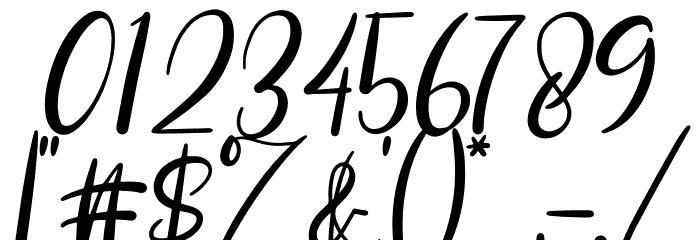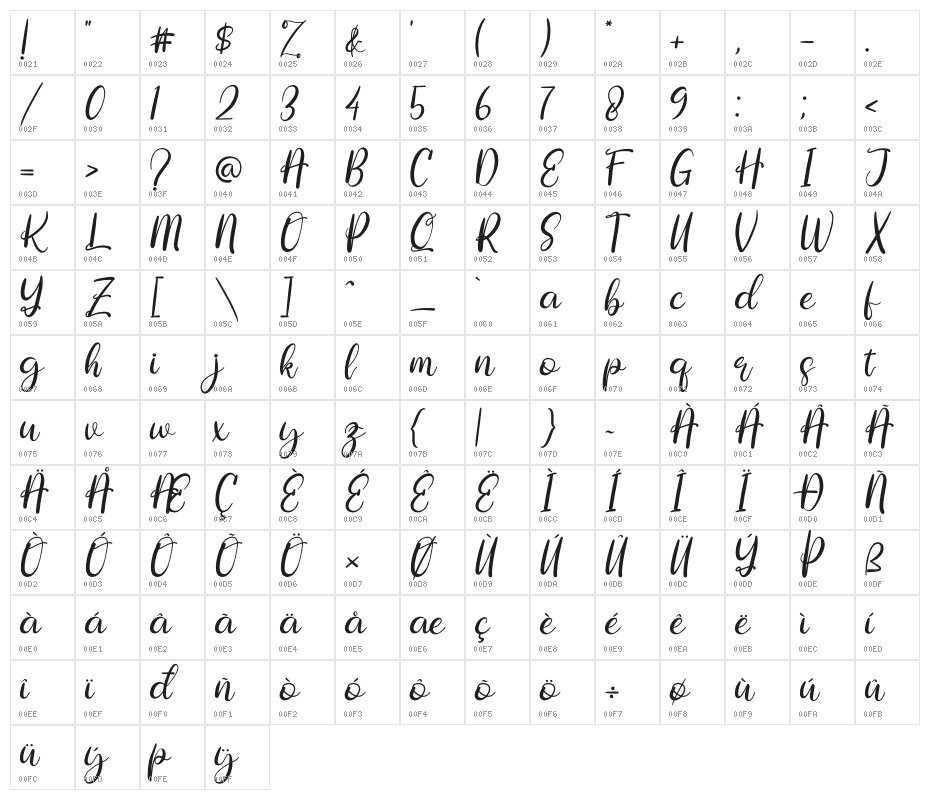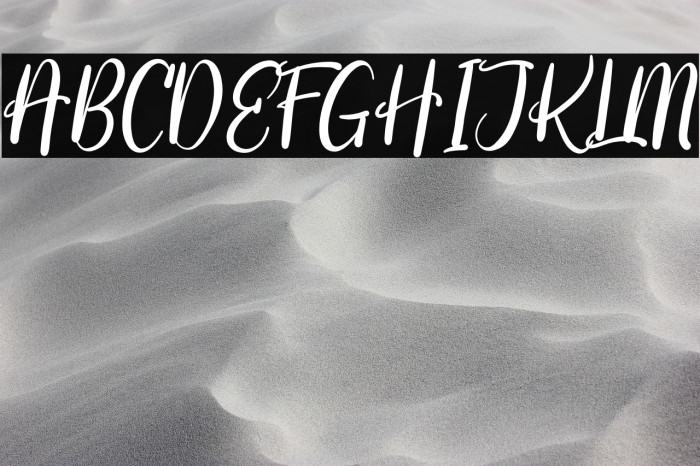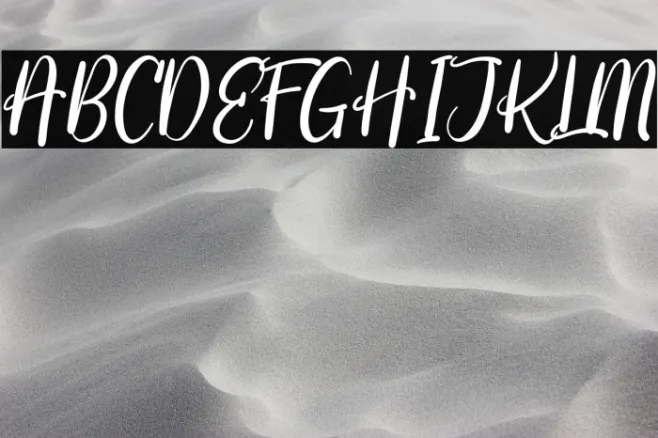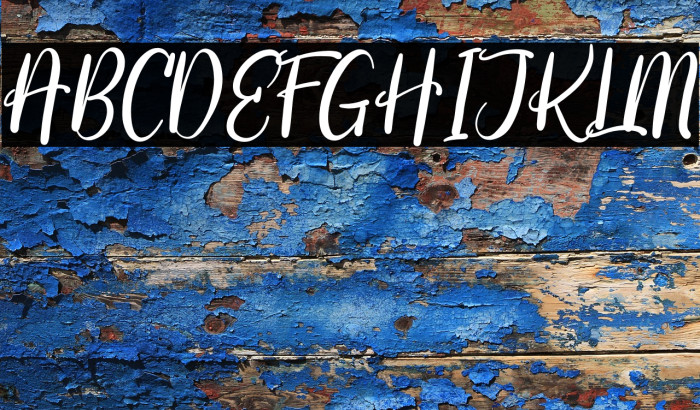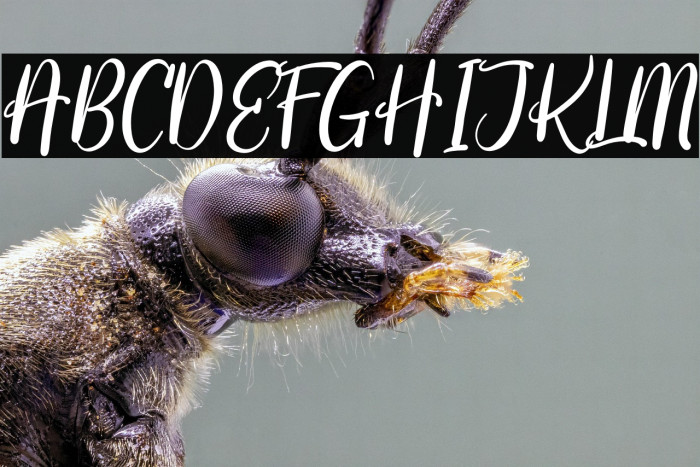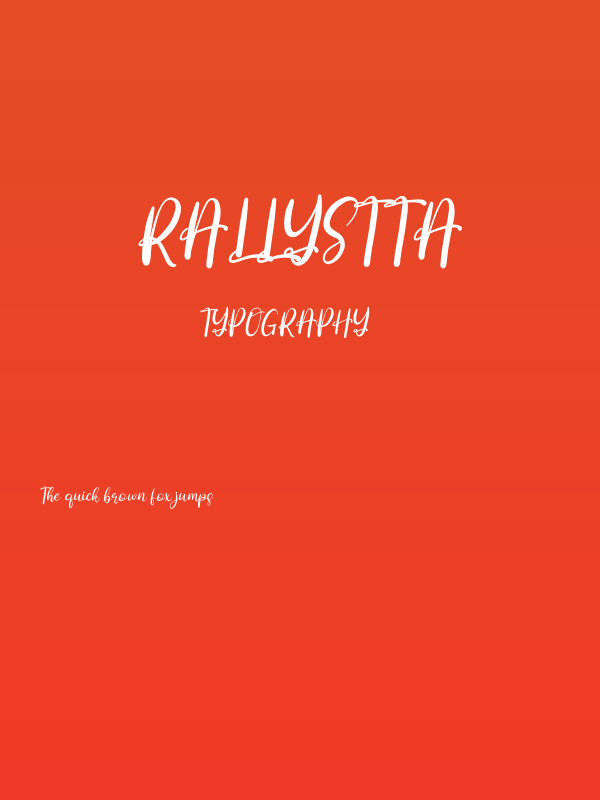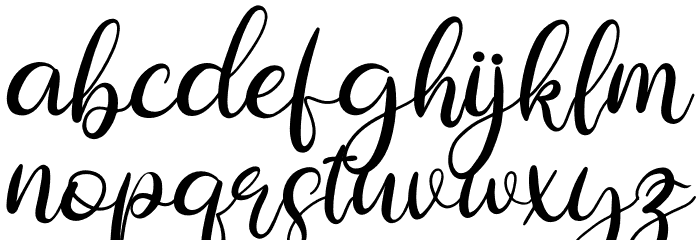
Rallystta Font
Rallystta Description
This font features a dynamic and fluid script style, characterized by its elegant and flowing letterforms. The uppercase letters are tall and slightly slanted, with smooth curves and a sense of movement that adds a touch of sophistication. The lowercase letters maintain a consistent style, with loops and swashes that enhance the handwritten feel. The numerals are well-integrated, matching the overall aesthetic with their graceful curves. Special characters are designed to complement the script, offering versatility for various design needs. The font's overall appearance is both stylish and approachable, making it suitable for a wide range of creative projects.
Use CaseLogos, Invitations, Branding
Proposed ProjectsIdeal for wedding invitations, branding, greeting cards, and elegant packaging designs.